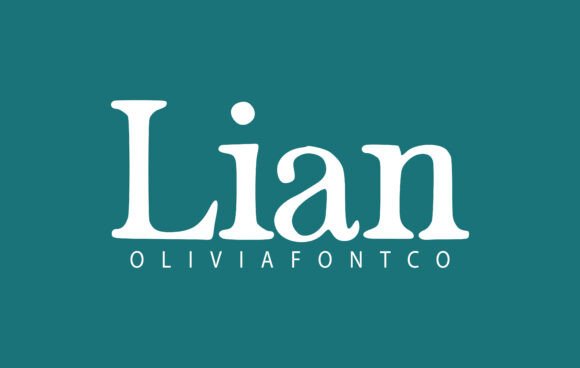
Lian Font: The Ultimate Handwritten Font for Creative Expression
In the world of typography, fonts play a crucial role in conveying emotions and setting the tone for various designs. Among the numerous fonts available, Lian Font stands out as a unique and authentic handwritten font with a romantic touch. Designed to be a true favorite among designers and creative enthusiasts, Lian Font has the potential to elevate your creative ideas to new heights.
What Makes Lian Font Special?
Lian Font is an expertly designed font that boasts a distinctive handwritten style with a romantic flair. Its authenticity and uniqueness make it an excellent choice for various design projects. Here are some key features that make Lian Font a standout:
- Authentic Handwritten Style: Lian Font is crafted to resemble authentic handwriting, giving your designs a personal and human touch.
- Romantic Touch: The font’s romantic undertones make it perfect for designs that require a sense of elegance and sophistication.
- Legibility: Lian Font is designed to be highly legible, making it suitable for use as both title and body text.
- Versatility: This font can be used for a wide range of design projects, including magazine headlines, social media graphics, branding, wedding invitations, cards, and more.
Uses of Lian Font
Lian Font’s versatility makes it an excellent choice for various design applications. Here are some of the many uses of Lian Font:
Magazine Headlines
Lian Font’s bold and romantic style makes it perfect for magazine headlines. Its uniqueness and elegance can add a touch of sophistication to your publication’s title pages.
Social Media Graphics
In the world of social media, visual content reigns supreme. Lian Font can help you create stunning social media graphics that stand out from the crowd. Use it to create eye-catching captions, quotes, or promotional materials.
Branding
A brand’s identity is built on its visual elements, and typography plays a crucial role in this process. Lian Font can be used to create a unique brand identity that sets your business apart from competitors.
Wedding Invitations
Lian Font’s romantic undertones make it an excellent choice for wedding invitations. Add a touch of elegance and sophistication to your wedding stationery with this beautiful font.
Cards and Stationery
Lian Font is also perfect for creating beautiful cards and stationery. Use it to create handmade cards, gift tags, or personalized stationery that showcases your creativity.
Benefits of Using Lian Font
Using Lian Font in your design projects offers several benefits. Here are some of the advantages of choosing Lian Font:
- Unique and Authentic: Lian Font’s authentic handwritten style sets it apart from other fonts, making your designs stand out.
- Elegant and Sophisticated: The font’s romantic undertones add a touch of elegance and sophistication to your designs.
- Legible and Versatile: Lian Font’s high legibility and versatility make it suitable for use in various design projects.
- Easy to Read: The font’s clear and readable style ensures that your message is conveyed effectively.
Tips for Using Lian Font Effectively
To get the most out of Lian Font, here are some tips to keep in mind:
- Use it Sparingly: Use Lian Font sparingly to create emphasis and add visual interest to your designs.
- Pair it with Other Fonts: Experiment with pairing Lian Font with other fonts to create a unique and visually appealing combination.
- Adjust Font Size and Style: Adjust the font size and style to suit your design needs and create visual hierarchy.
- Experiment with Colors: Try out different colors to find the perfect match for your design and make Lian Font stand out.
Lian Font is a unique and authentic handwritten font with a romantic touch that can elevate your creative ideas to new heights. Its legibility, versatility, and elegance make it perfect for various design projects, from magazine headlines to wedding invitations. By incorporating Lian Font into your design workflow, you can add a touch of sophistication and elegance to your creations. So why wait? Give Lian Font a try today and discover the endless possibilities it has to offer!